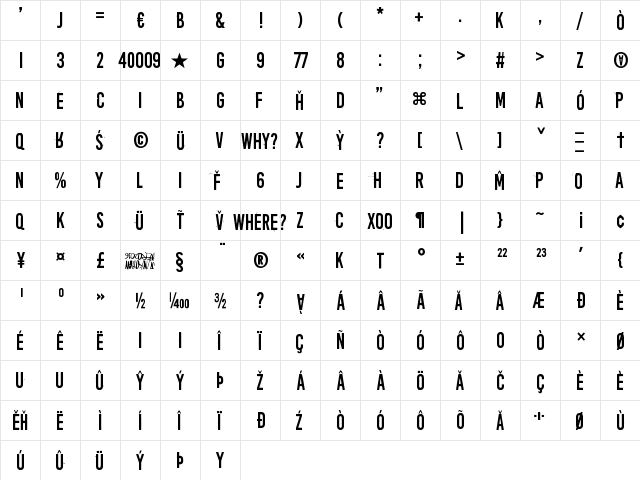
April Fools' Day Crazy vrs Regular
Design Context for April Fools' Day Crazy vrs Typeface
April Fools' Day Crazy vrs takes a measured approach to typography — its balanced proportions and neutral character make it a reliable workhorse for both digital and print work.
Pro Tip: Use April Fools' Day Crazy vrs in both headline and body roles to test its range before committing to a single application.